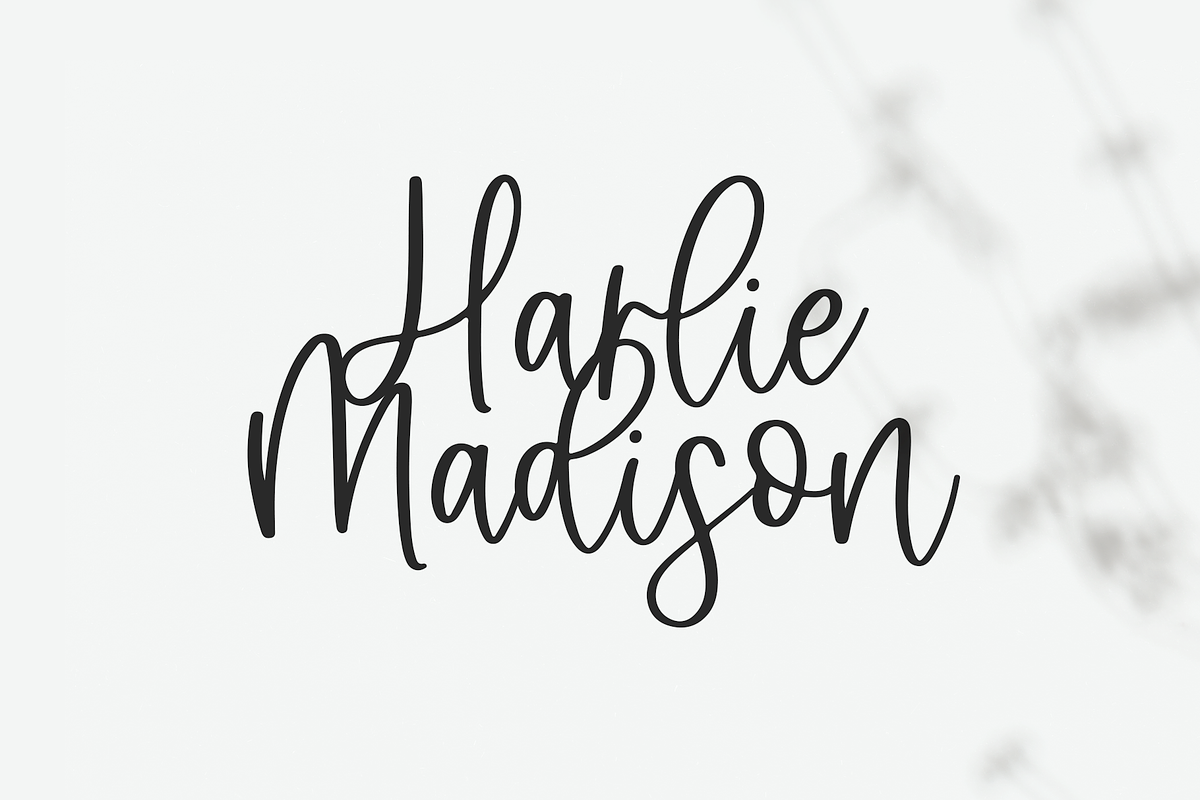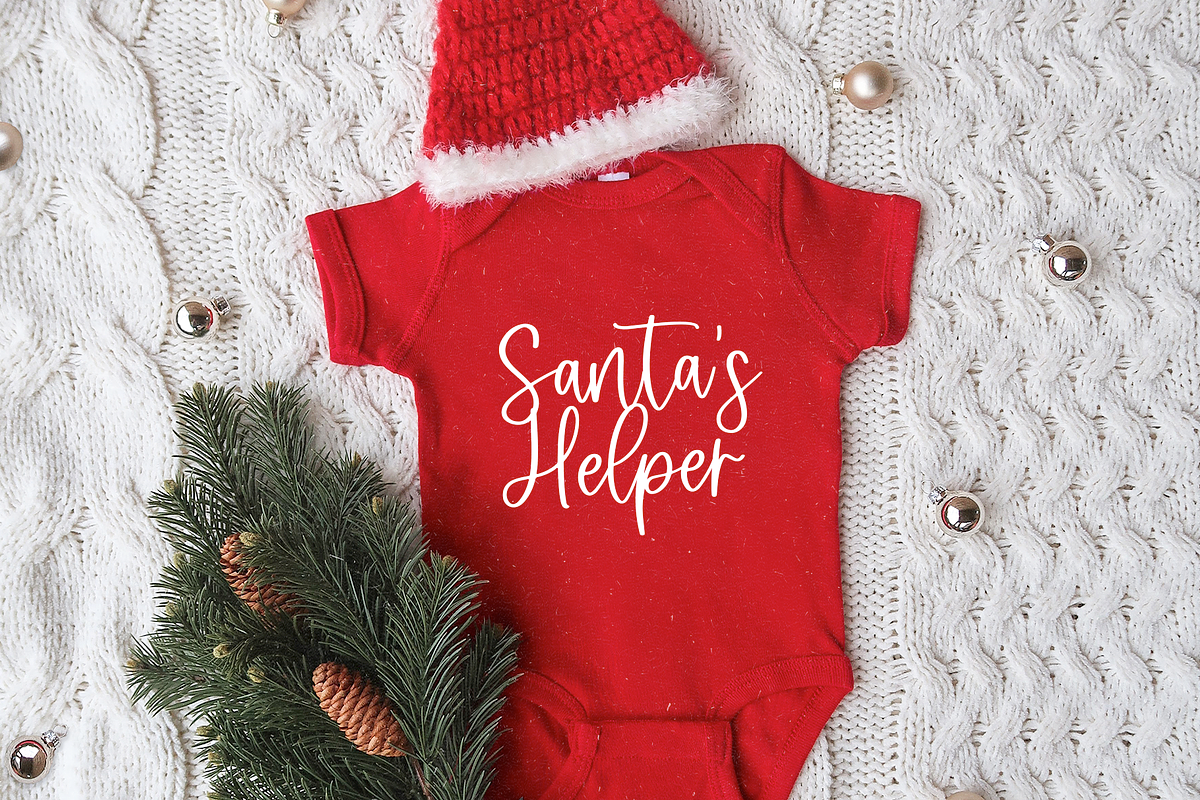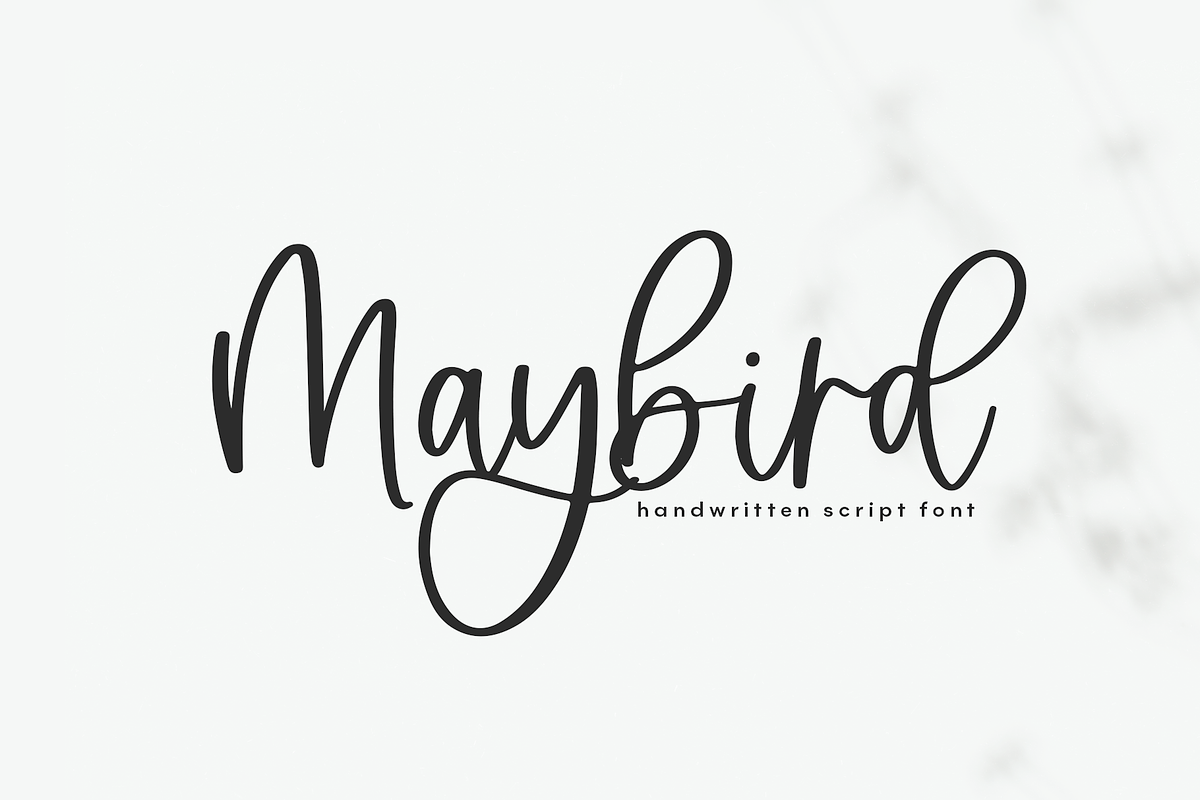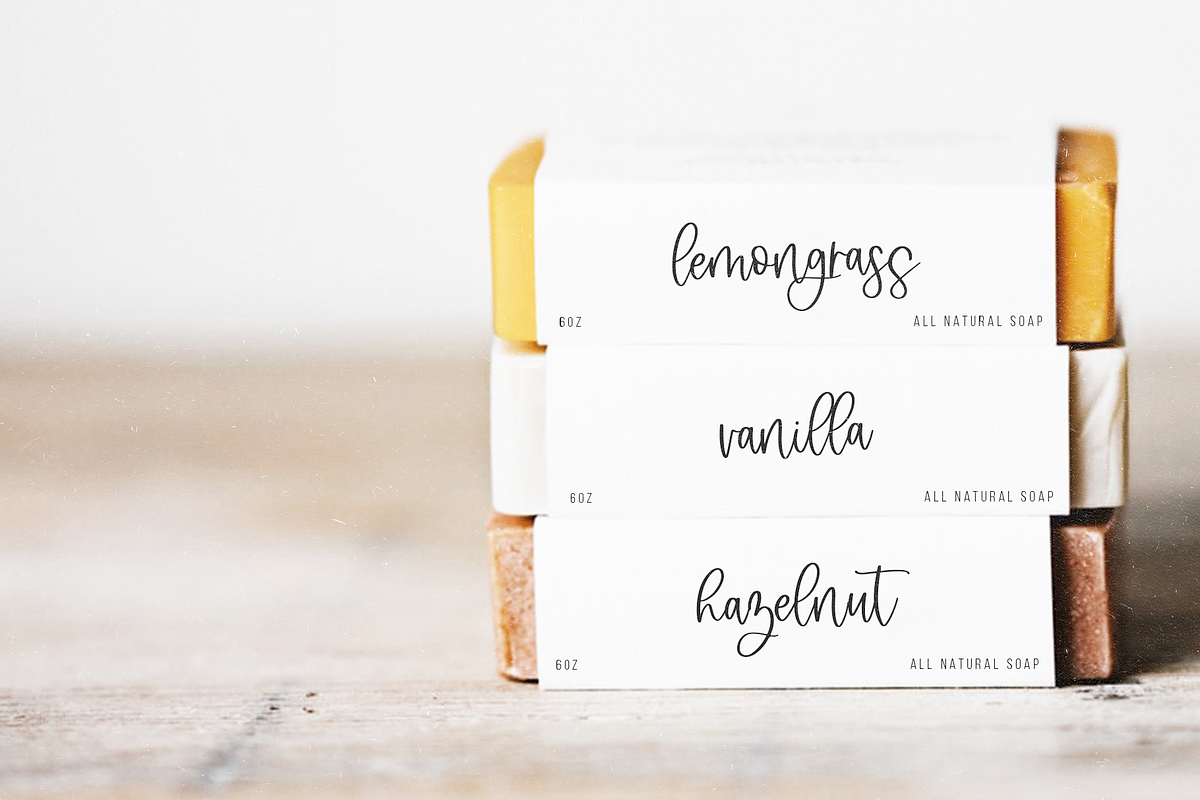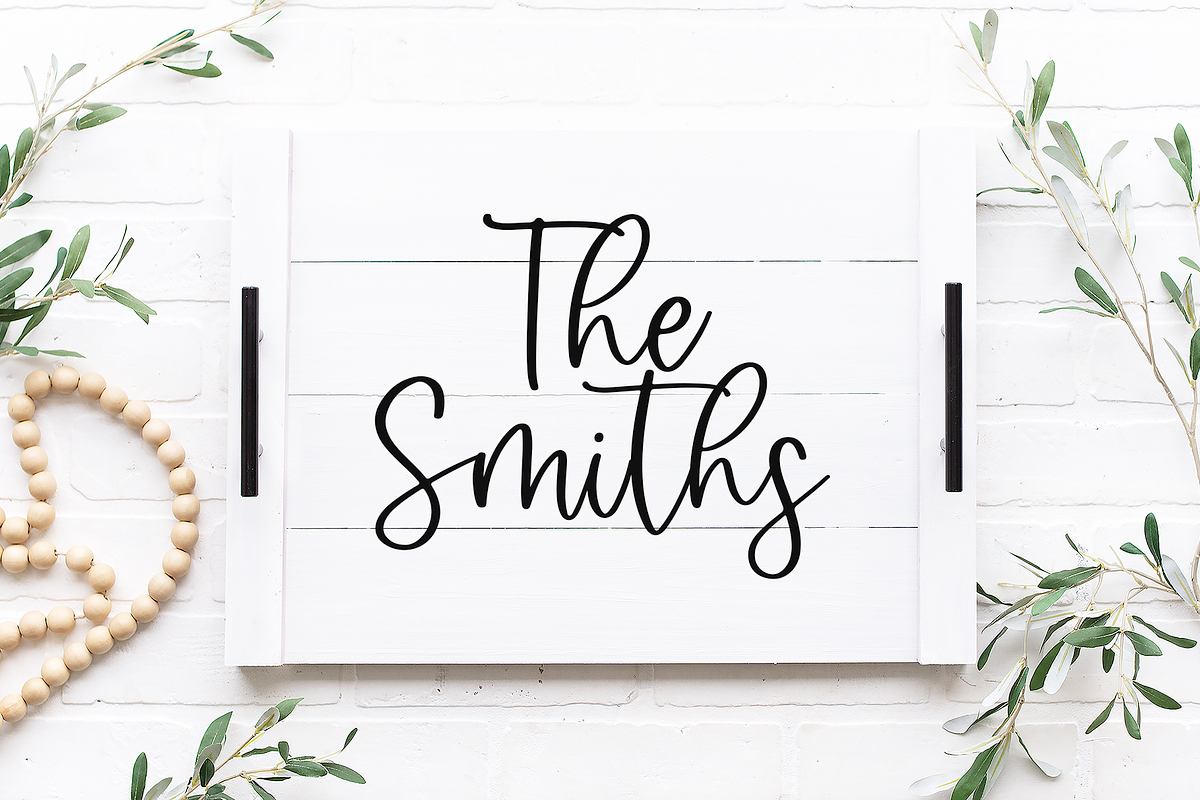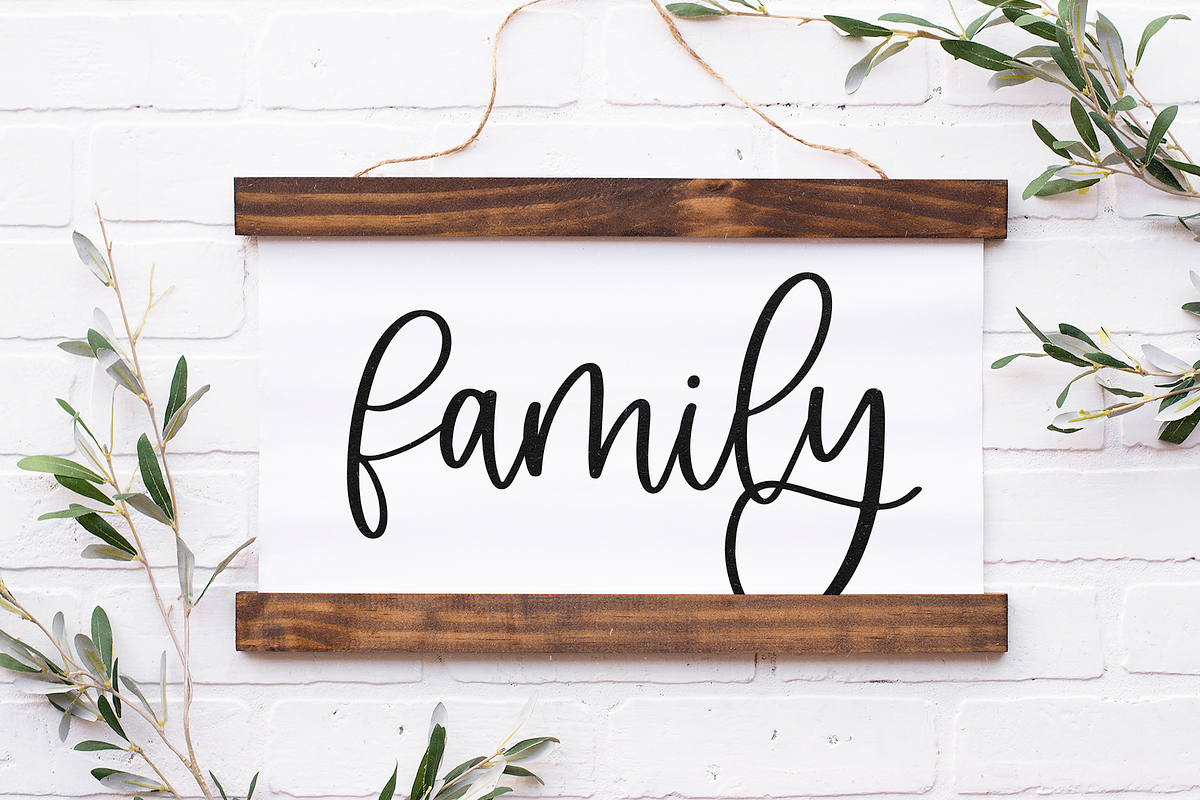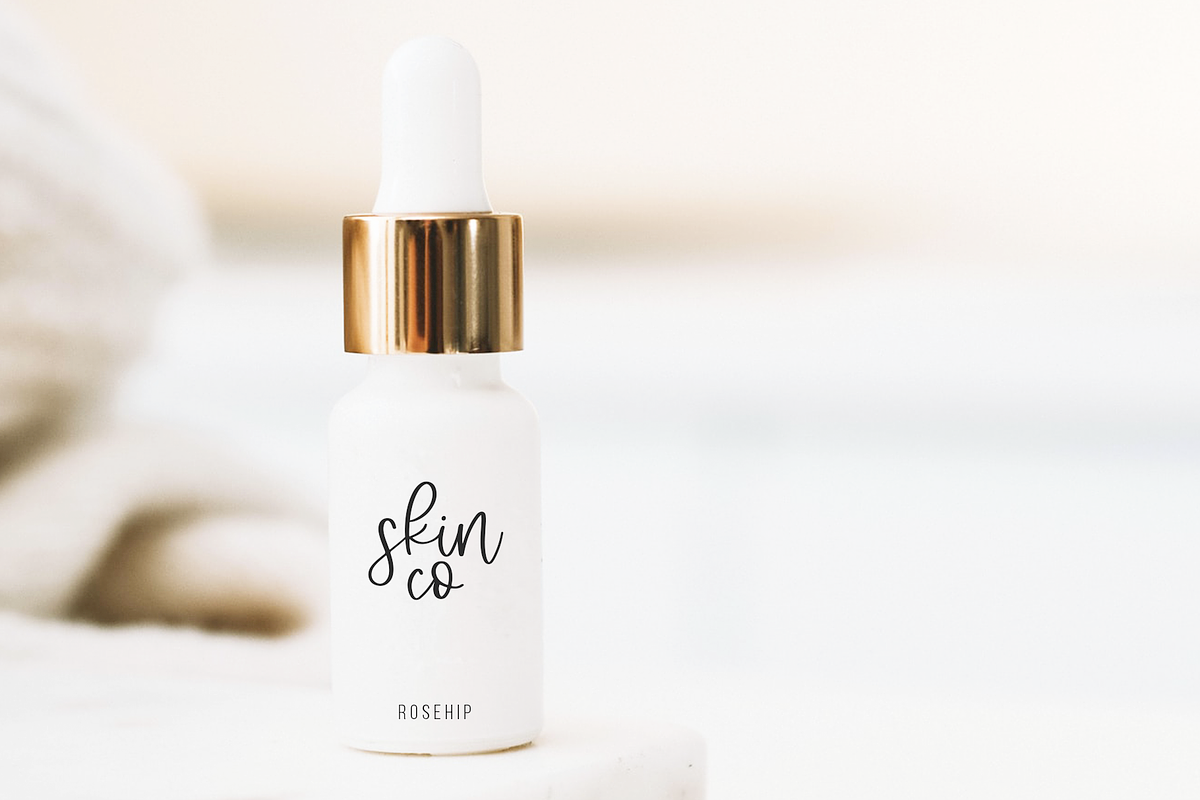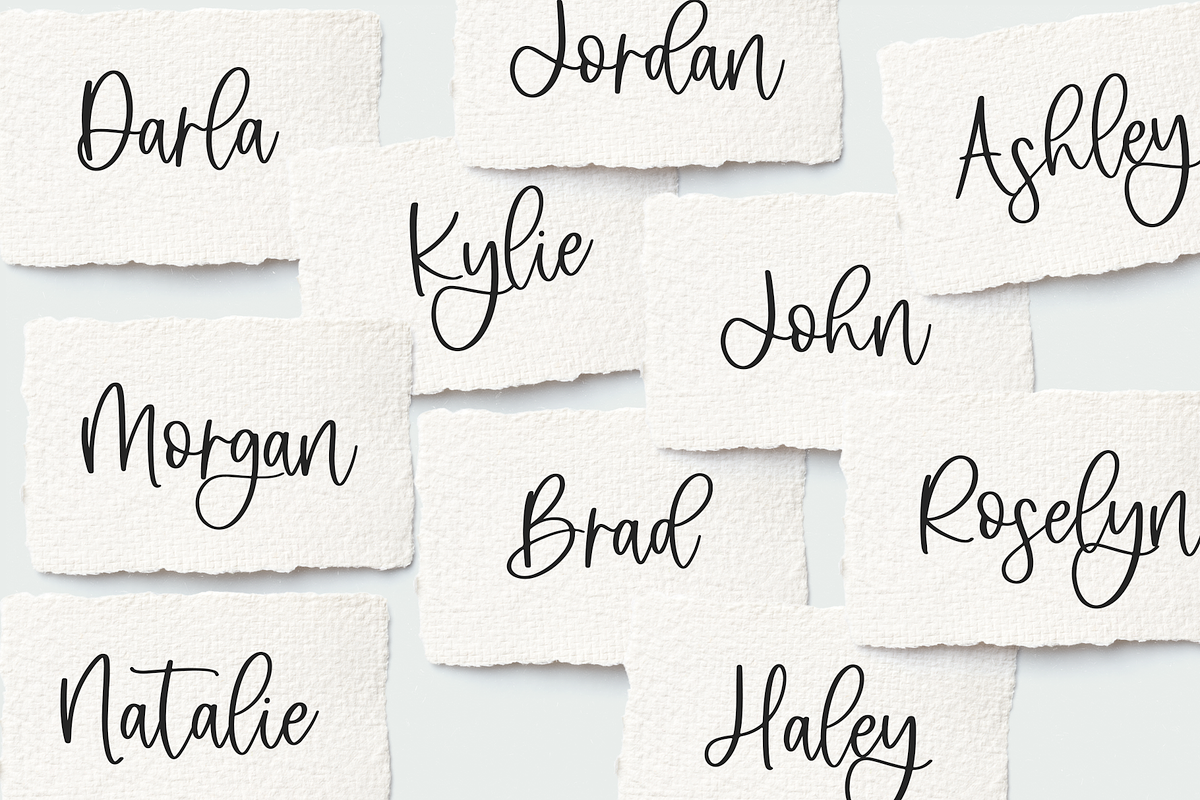
Maybird | Handwritten Script Font
Maybird is a modern handwritten script font.
This font is perfect for branding, logos, wedding invitations, home decor, farmhouse signs, shirts, svg designs, cricut projects, business cards, wooden signs and more!